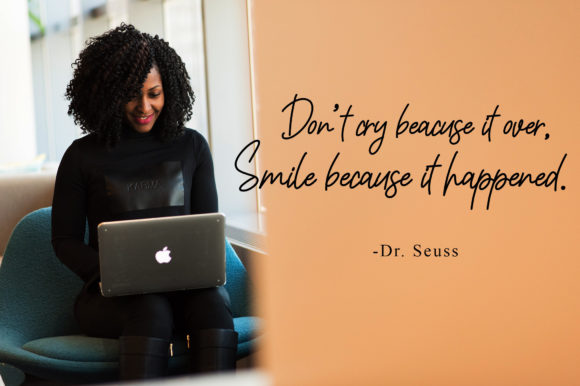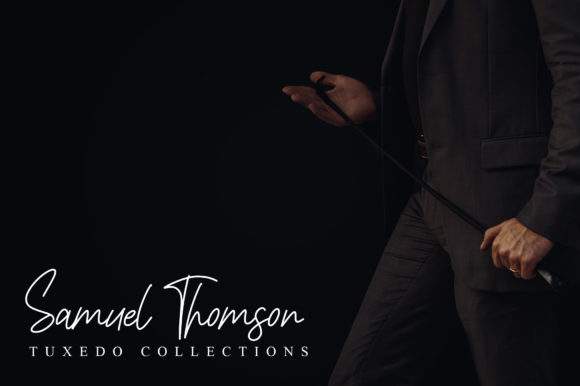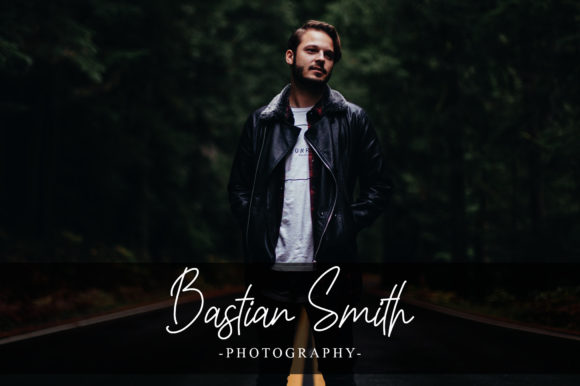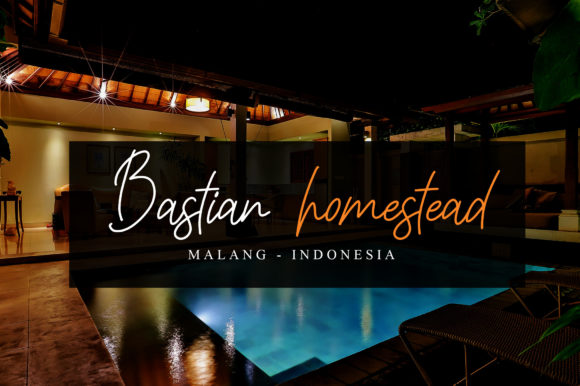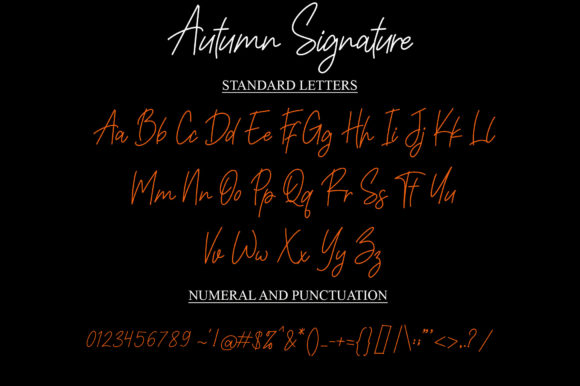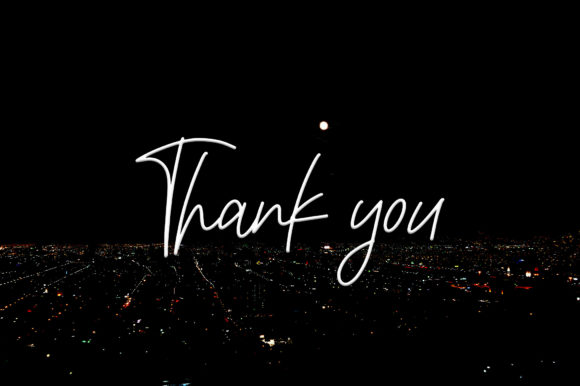
Introducing Autumn Signature Font: The Epitome of Elegance and Sophistication
As the seasons change and autumn leaves start to fall, designers and crafters are on the lookout for fonts that capture the essence of this picturesque season. If you’re searching for a font that exudes elegance, sophistication, and romance, look no further than the Autumn Signature Font, also known as Soulmate Signature. This thin lettered and graceful script font is sure to captivate your audience with its ravishing style, making it perfect for a wide range of creative projects.
Soulmate Signature: A Font that Speaks to the Heart
Soulmate Signature is a beautiful, hand-crafted font that embodies the spirit of love and romance. Its delicate, cursive letters seem to dance across the page, evoking feelings of warmth and intimacy. Whether you’re designing wedding invitations, creating stunning stationery art, or crafting eye-catching social media posts, this font is sure to make your project stand out from the crowd.
Endless Possibilities with Autumn Signature Font
One of the best things about the Autumn Signature Font is its versatility. Its elegant and refined style makes it suitable for a wide range of applications, including:
- Wedding Invitations: Create beautiful, one-of-a-kind wedding invitations that set the tone for a romantic and unforgettable celebration.
- Stationery Art: Design stunning stationery art, including greeting cards, thank-you cards, and letterheads, that showcase your creativity and attention to detail.
- Social Media Posts: Craft eye-catching social media posts that grab the attention of your followers and leave a lasting impression.
- Branding and Packaging: Use the Autumn Signature Font to create a cohesive brand identity that exudes elegance and sophistication.
Why Choose Autumn Signature Font?
So, what sets the Autumn Signature Font apart from other fonts? Here are just a few reasons why designers and crafters love this beautiful script font:
- Unique and Elegant Style: The Autumn Signature Font boasts a distinctive, elegant style that is sure to make your project stand out from the crowd.
- Highly Versatile: This font can be used for a wide range of applications, from wedding invitations to social media posts.
- Easy to Read: Despite its delicate nature, the Autumn Signature Font is highly legible, making it perfect for both print and digital applications.
- Timeless Appeal: This font’s classic, sophisticated style ensures that it will remain a popular choice for years to come.
Tips for Using Autumn Signature Font
To get the most out of the Autumn Signature Font, here are a few tips to keep in mind:
- Pair with Complementary Fonts: Combine the Autumn Signature Font with complementary fonts to create a visually appealing contrast.
- Experiment with Colors: Try pairing the font with different colors to create a unique and eye-catching effect.
- Use for Headings and Titles: The Autumn Signature Font is perfect for headings and titles, where its elegant style can really shine.
In conclusion, the Autumn Signature Font, also known as Soulmate Signature, is a beautiful and elegant script font that is sure to captivate your audience with its ravishing style. With its versatility, timeless appeal, and ease of use, this font is perfect for designers and crafters looking to create stunning wedding invitations, stationery art, social media posts, and more. So why wait? Fall in love with the Autumn Signature Font and take your creative projects to the next level!